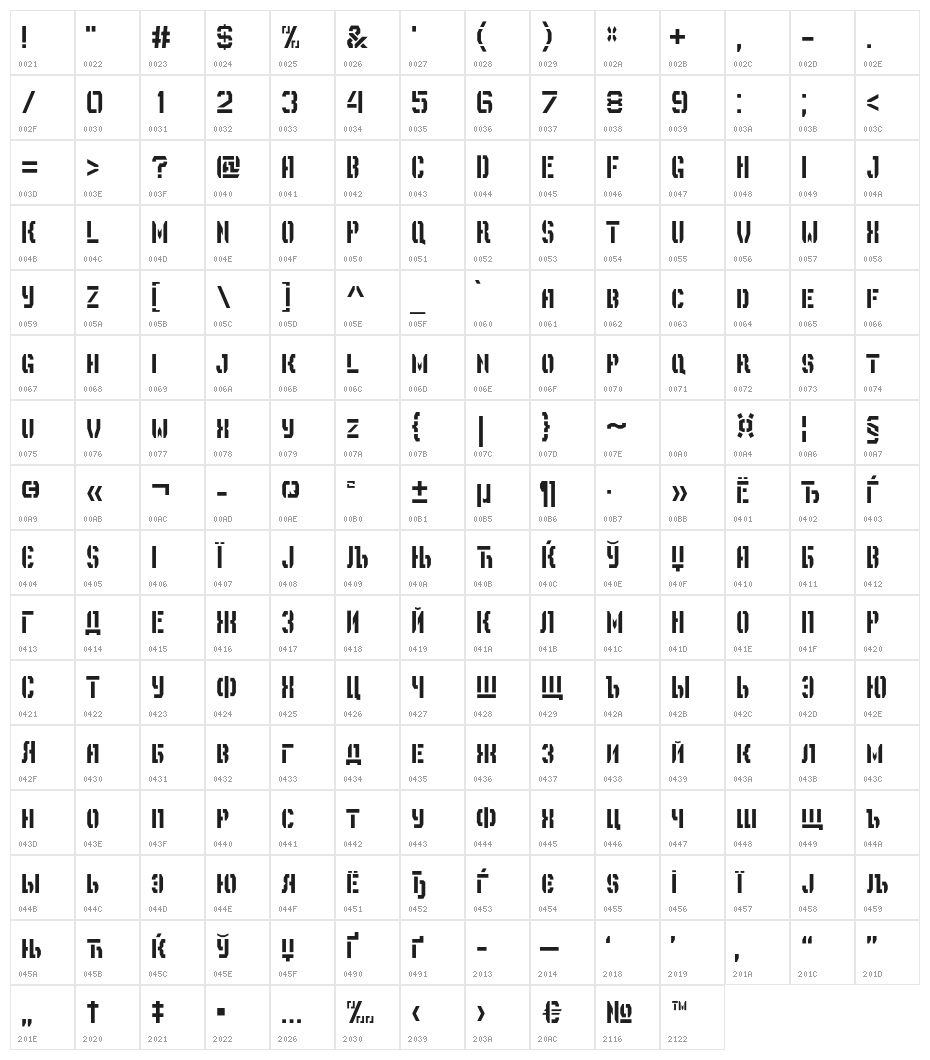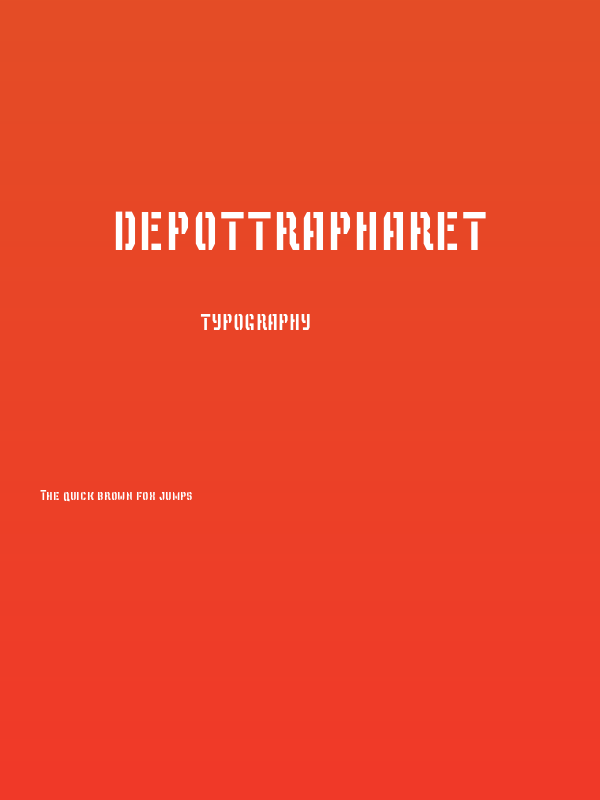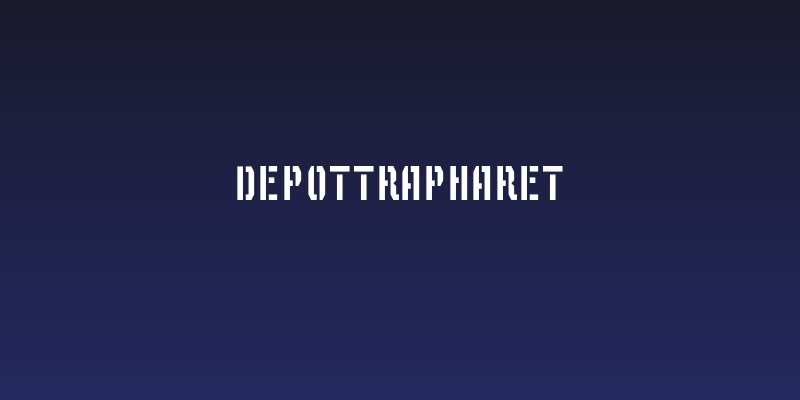
DepotTrapharet Font
DepotTrapharet Description
This font features a bold, stencil-like design with a strong industrial feel. The characters are constructed with solid, blocky shapes, and the stencil gaps give it a utilitarian, rugged appearance. The uppercase and lowercase letters maintain a consistent style, emphasizing geometric forms and sharp angles. The numerals and special characters follow the same design principles, ensuring uniformity across all glyphs. This font is ideal for projects that require a bold, impactful statement, such as posters, signage, or branding materials that aim to convey strength and durability.
| Overall Style | Industrial, Rugged |
| Use Case | Headlines, Logos, Signage |
| Proposed Projects | Ideal for posters, signage, branding, and any project needing a strong, industrial aesthetic. |